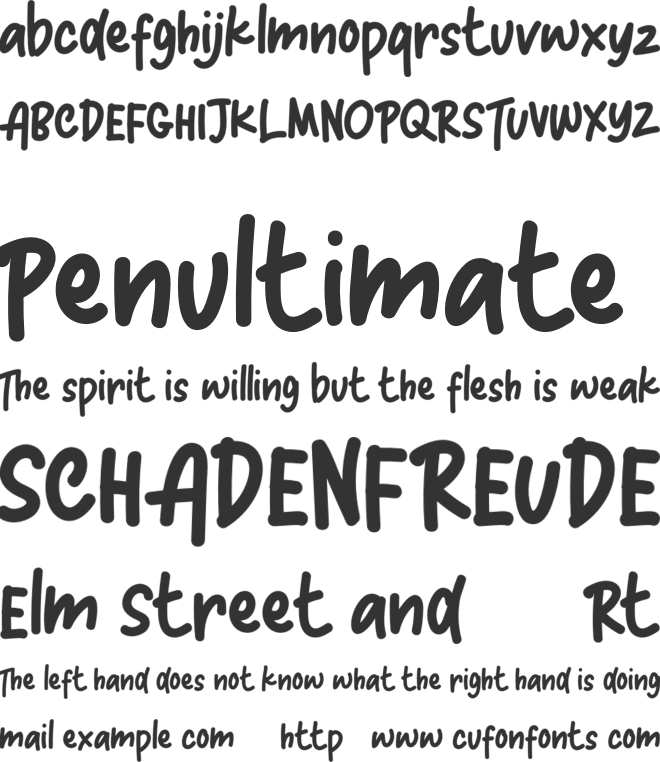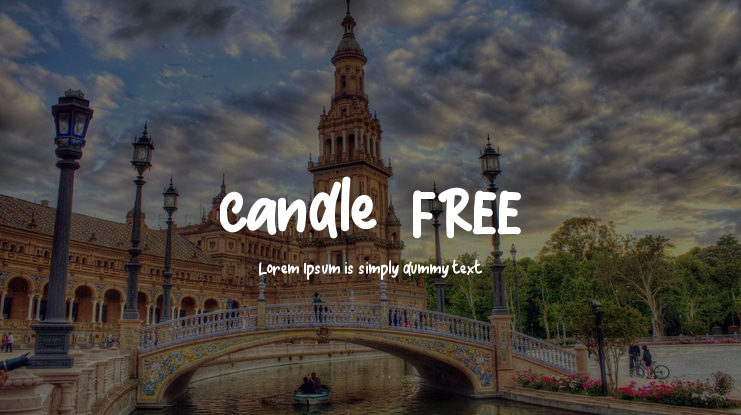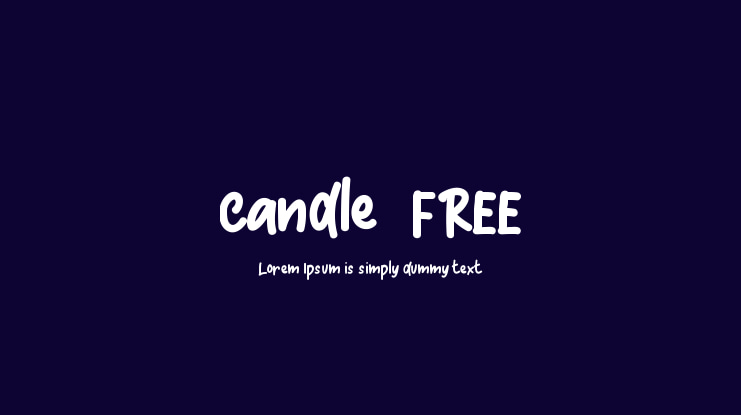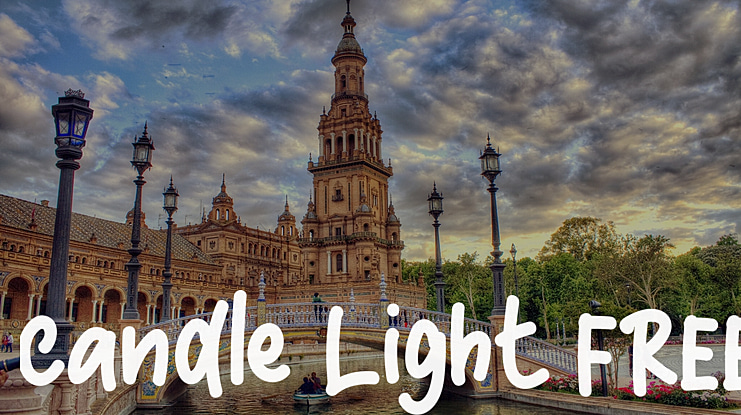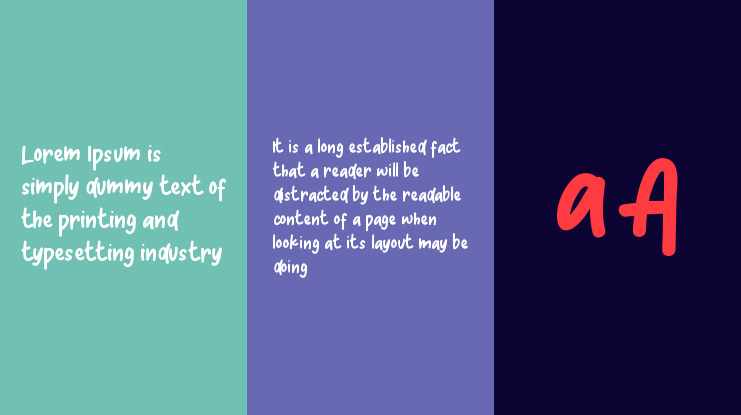
Candle FREE Font
"Candle Light" is a font display is made by hand, inspired by classic posters.comes with uppercase, lowercase, numerals, punctuations and so many variations on each character include OpenType alternates, common ligatures and also additional swash to let you customize your designs. Perfect to use for Logotype, Letterhead, Poster, Apparel Design, Label and etc.THIS IS DEMO VERSION. Support us with buy commercial use license!For Commercial Use, grab it fast on this linkhttps://creativemarket.com/Inspiratype/4743597-Candle-Light-Handwritten-Fontcheck my another font on thishttps://creativemarket.com/InspiratypeAny question, drop me email to  (https://creativemarket.com/Inspiratype)Thanks